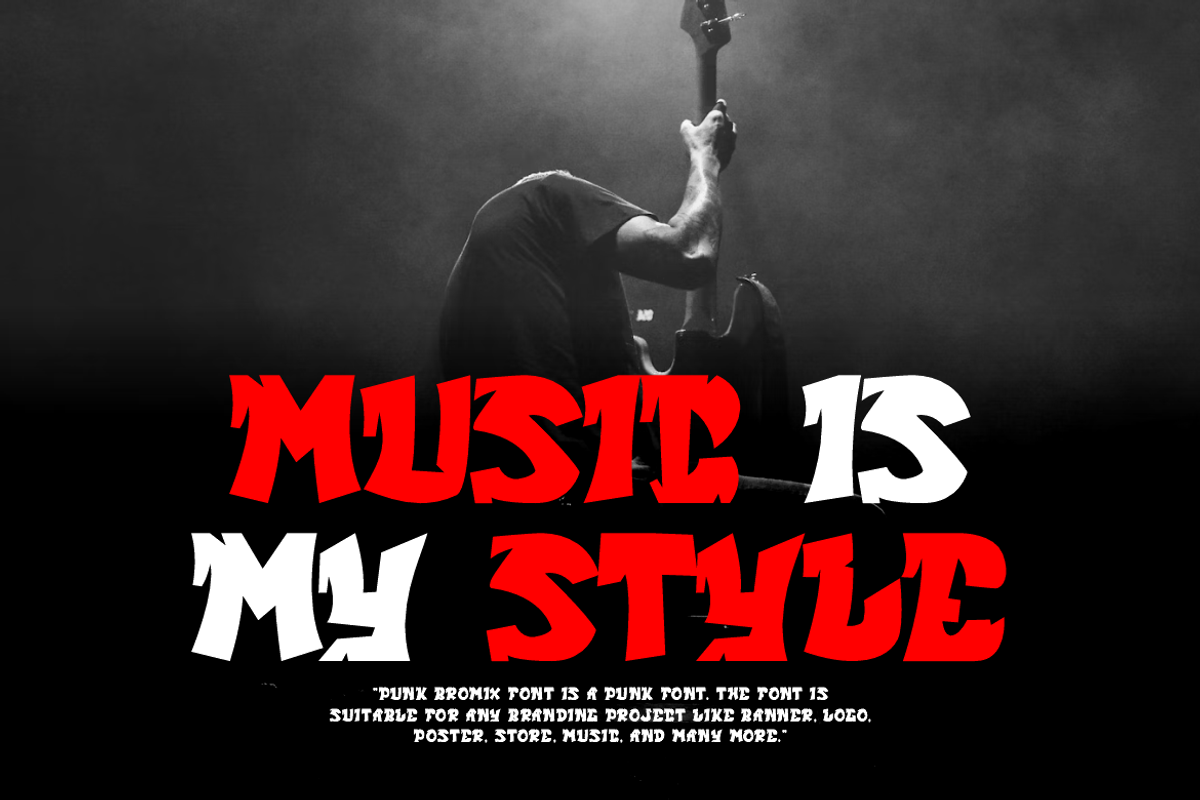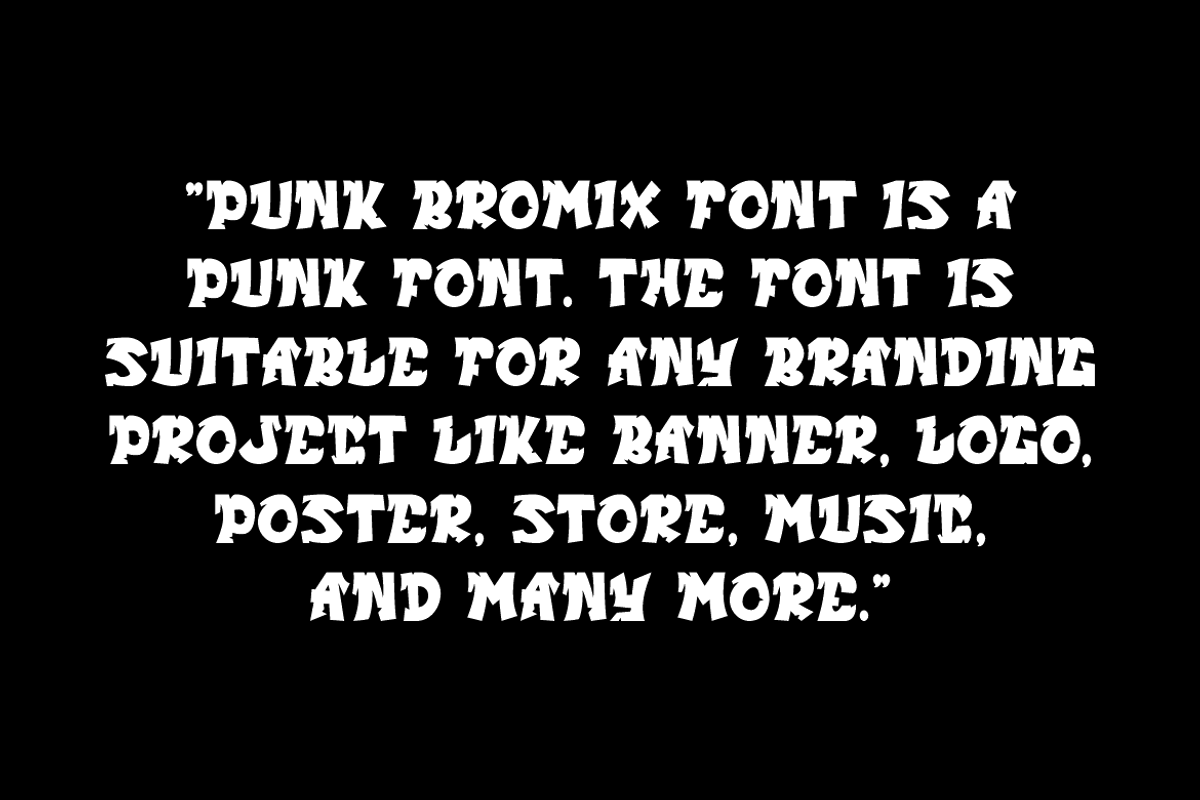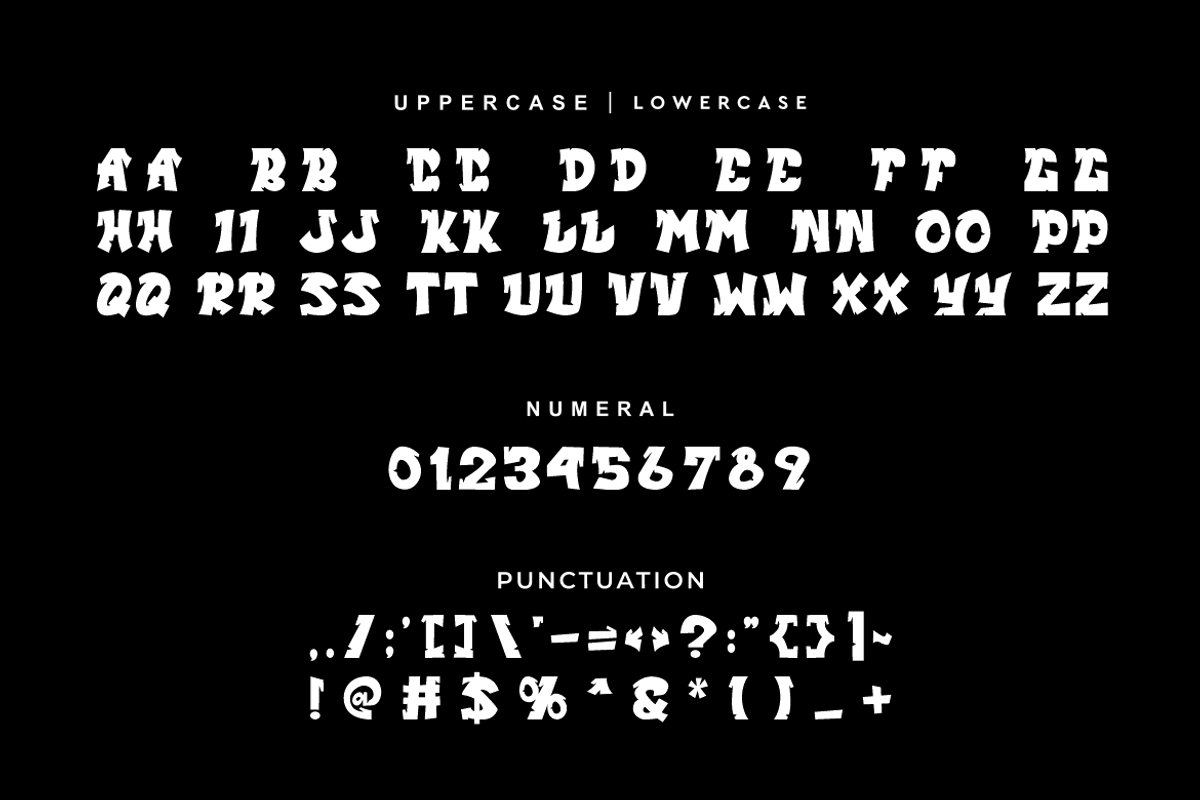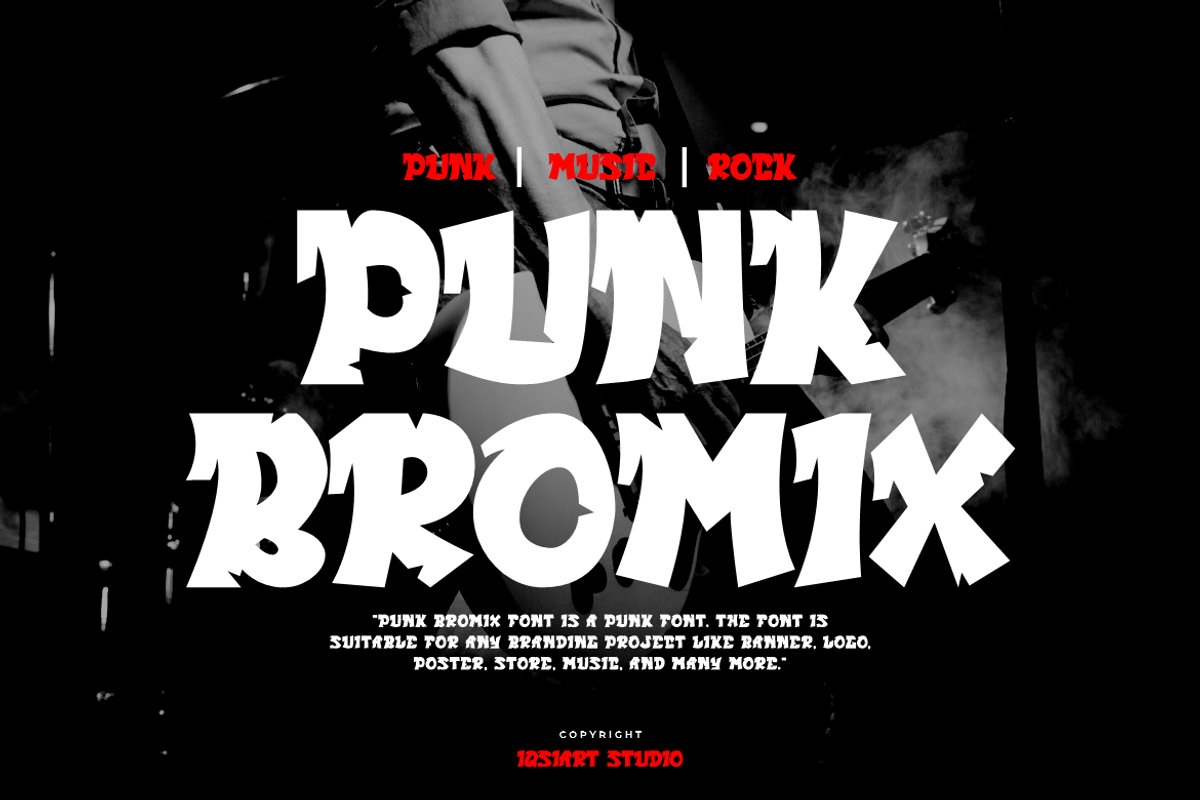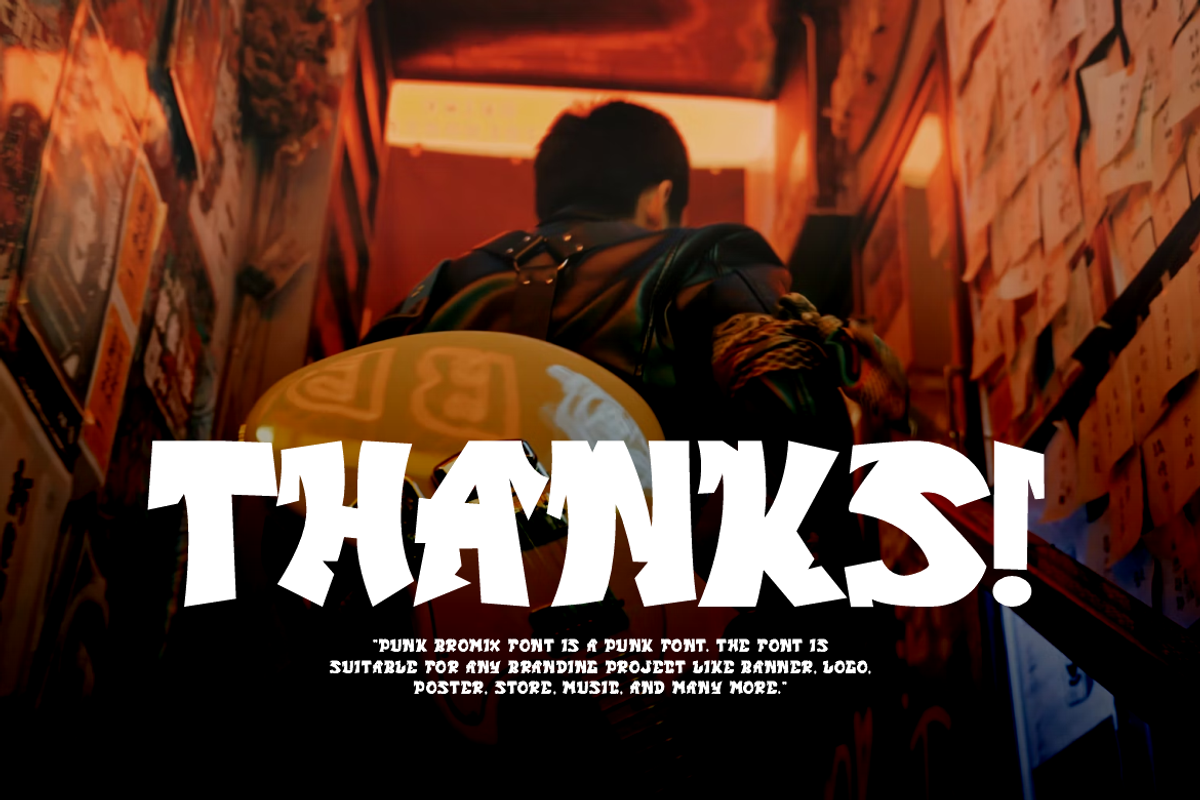
Punk Bromix - Music Font
Punk Bromix Font is a best and authentic display font. This font can be used for your various needs. We provide various themes and font styles. visit our profile to get a wide variety of themes and different font styles you need.